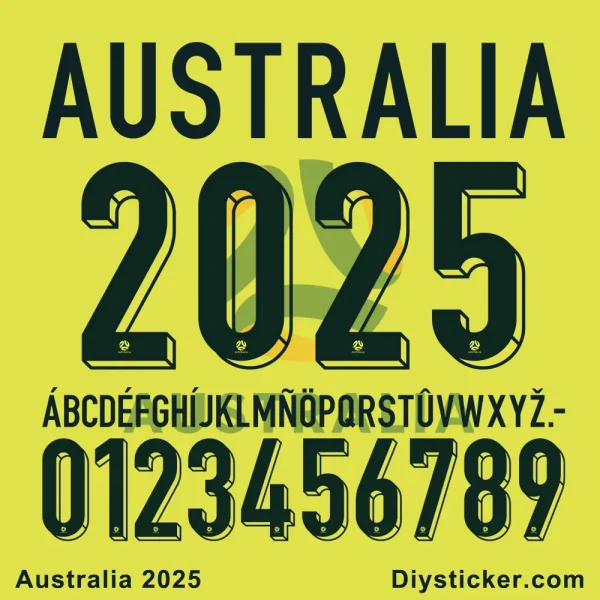
Australia 2025 Font Vector Download
Australia 2025 Font Vector Download.
Enhance your designs with the official Australia 2025 jersey font. This downloadable font is perfect for fans and designers looking to recreate the authentic look of the Australian national team’s 2025 jersey. Ideal for custom jerseys, posters, and social media graphics. Download now to show your support!